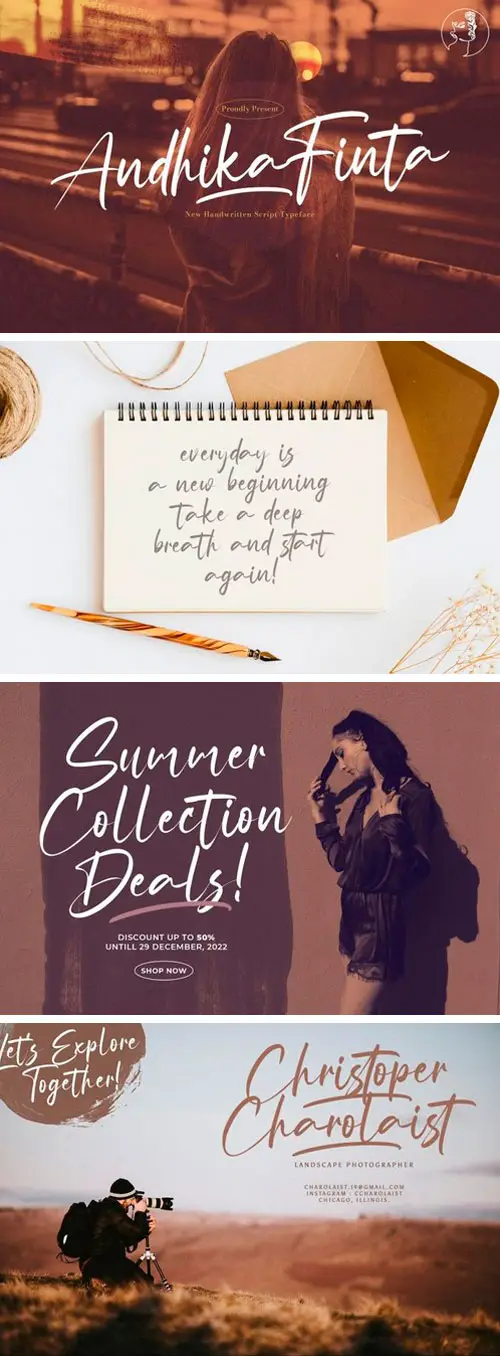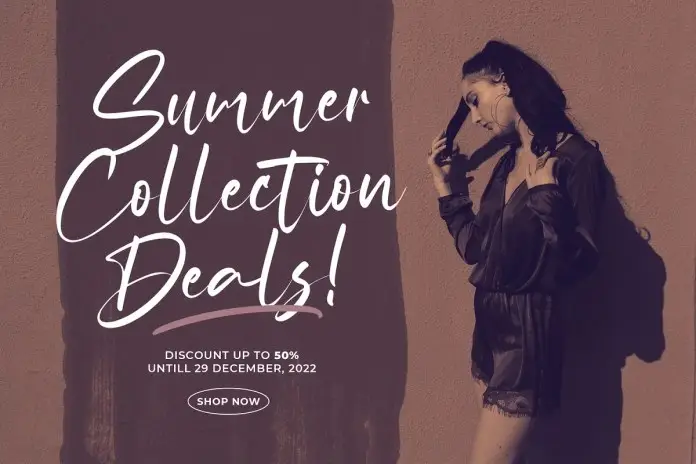
Andhika Finta Handwritten Font
Introducing the Andhika Finta Handwritten Font, a beautifully crafted typeface that captures the essence of natural handwriting. This font is perfect for adding a personal touch to your projects, making it ideal for branding, logos, web design, and print materials.
• Stylish handwritten design
• Easy to read at various sizes
• Style: Handwritten
Utilize this font for invitations, greeting cards, social media graphics, and any project that requires a warm, inviting feel. Its unique style can elevate your designs and engage your audience.